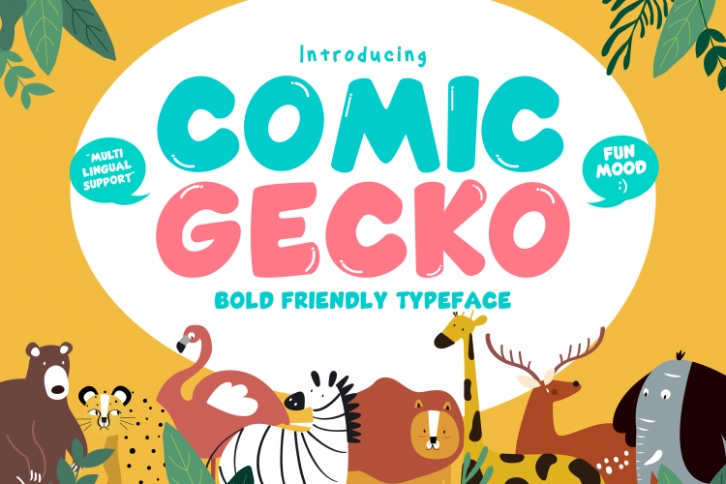
Comic Gecko is a bold, playful and fun display font. It embodies joy and authenticity and is the perfect choice for any children activity or school project.